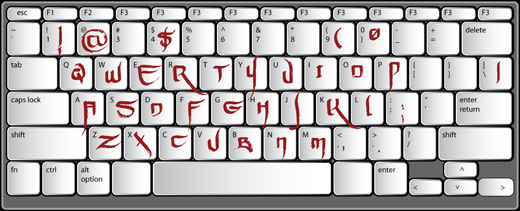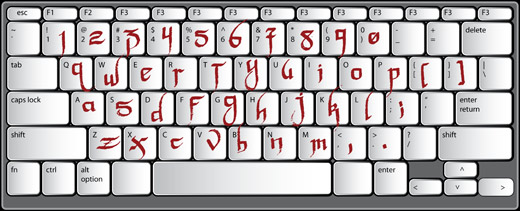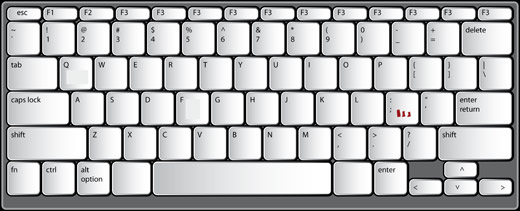
The Ballers™ font includes full upper & lowercase alphabets, numbers, puctuation & some symbols. The rough, brush style strokes make this font look natural & less like a digital font. |